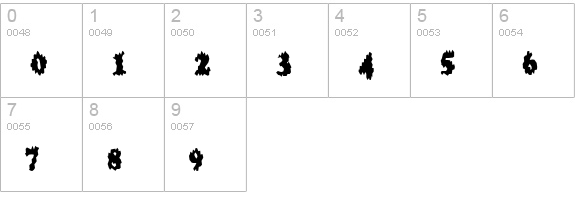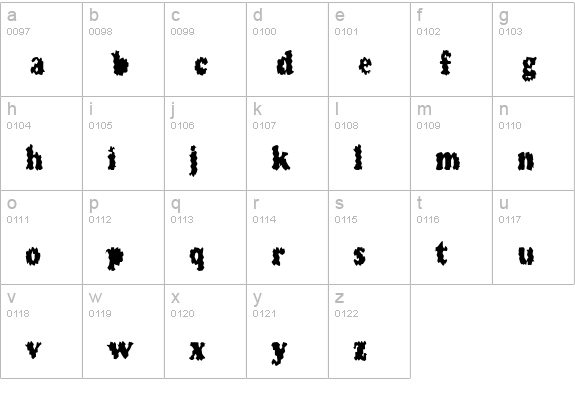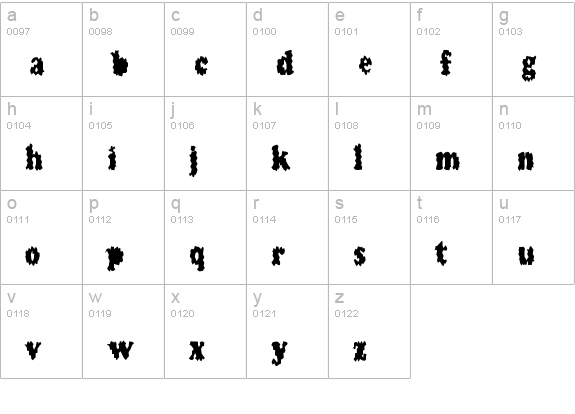
TooMuchCoffee Font Details
Introducing TooMuchCoffee font, the perfect blend of elegance and quirkiness. This font is designed to add a touch of sophistication to any project, while still maintaining a playful and energetic vibe. With its unique combination of bold lines and delicate curves, TooMuchCoffee is sure to catch the eye and leave a lasting impression. But the best part? TooMuchCoffee font is completely free! That's right, you can download this incredible font without spending a dime. It's our way of sharing the love for typography and making high-quality design accessible to everyone. Whether you're a professional designer looking to add some flair to your latest project or a casual user in need of a standout font for personal use, TooMuchCoffee font is the ideal choice. Its versatility allows it to shine in a variety of contexts, from logos and branding to social media graphics and invitations. So, don't miss out on this amazing opportunity to enhance your designs with TooMuchCoffee font. It's freely available to download at FontsMarket.com, a trusted source for high-quality fonts. Get creative and let your imagination run wild with this captivating and free font. Happy designing!